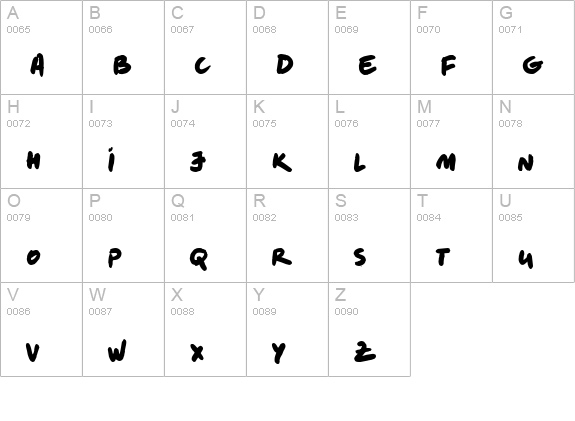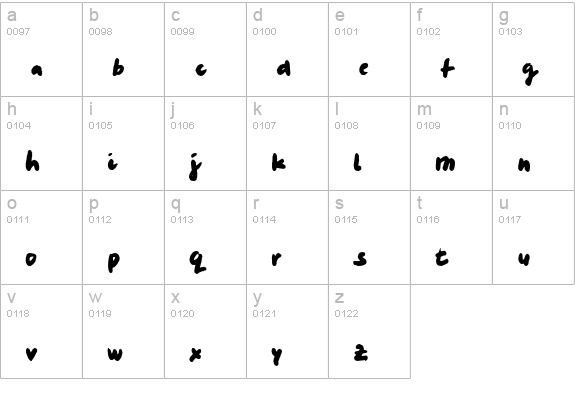
LeviMarker Font Details
Introducing LeviMarker font - a stylish and modern typeface perfect for adding a touch of elegance to your designs. With its sleek lines and contemporary appeal, LeviMarker is sure to make a statement in any project. This versatile font is ideal for various design purposes, from branding to packaging, posters, and more. What makes LeviMarker font even more appealing is that it is available for free download at FontsMarket.com. You can easily access this premium font without any cost, making it a valuable addition to your font collection. Whether you're a designer looking for a new go-to font or simply want to enhance your projects with a touch of sophistication, LeviMarker is the perfect choice. Download it today and elevate your designs with this stunning typeface.